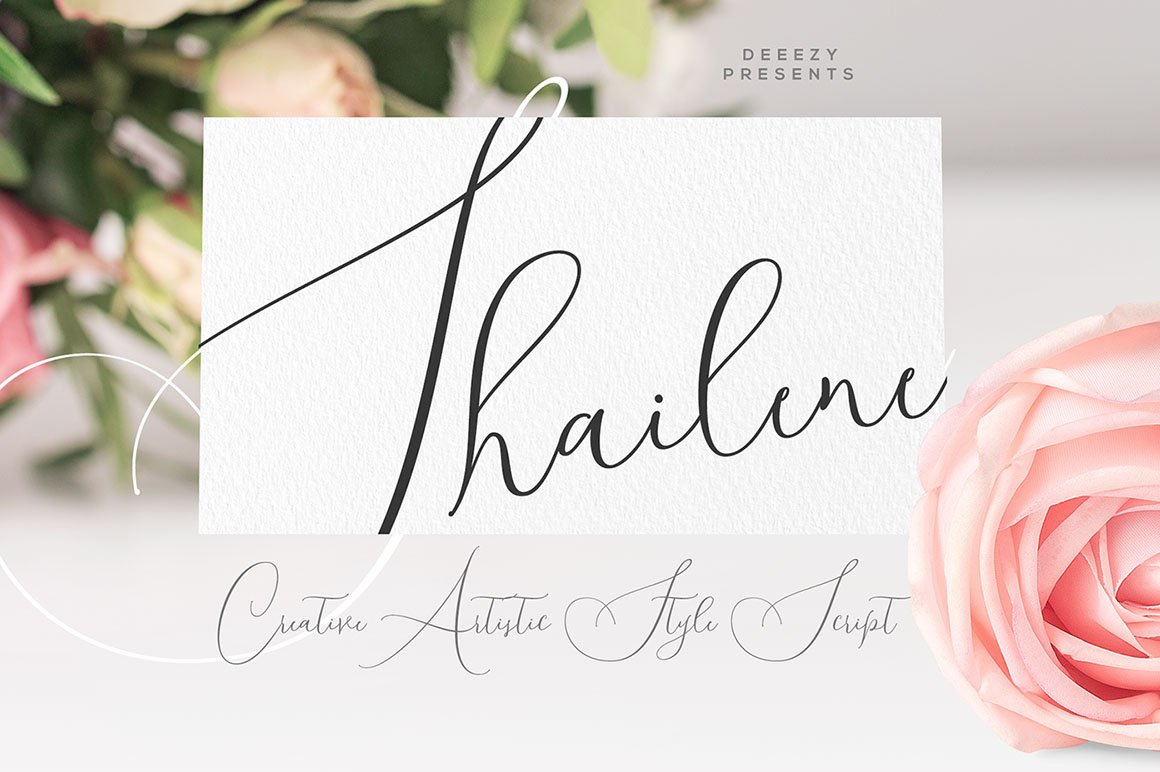
Shailene Script Font
Shailene Script Font is perfect for elegant wedding invitations, feminine brand identity, beauty salon signage, boutique packaging design, luxury cosmetics branding, fashion magazine layouts, romantic greeting cards, spa and wellness materials, jewelry brand identity, sophisticated blog headers, intimate event stationery, and graceful calligraphic compositions.
Shailene Script Font is exciting because it embodies feminine elegance and modern sophistication with flowing script letterforms that dance gracefully across the page, creating an irresistible combination of contemporary style and timeless beauty that instantly elevates any design to luxury status while maintaining perfect readability.
The Shailene Script Font family includes refined variations: Regular, Bold, Light, Swash alternates, Decorative ligatures, and Flourished capitals, providing designers with a complete elegant script system to create sophisticated typographic compositions that capture feminine grace and modern luxury appeal.
Embrace feminine elegance with Shailene Script Font Free Download. This stunning script typeface brings sophisticated beauty and contemporary grace to modern design projects. Whether you're creating luxury brand identities, designing elegant event materials, or developing premium marketing campaigns, Shailene Script Font delivers unmatched refinement and feminine charm that resonates with discerning audiences.
The font's exquisitely crafted letterforms showcase the fluid beauty of modern calligraphy while incorporating contemporary design principles that ensure optimal performance across digital and print applications. Each character flows seamlessly with natural grace, creating harmonious compositions that feel both current and timelessly elegant.
Shailene Script Font excels in creating distinguished brand experiences for businesses targeting sophisticated, style-conscious consumers. Its elegant presence transforms ordinary communications into extraordinary statements of luxury and quality, making it ideal for beauty brands, fashion retailers, and premium service providers seeking to communicate refinement and exclusivity.
Creative professionals appreciate how Shailene Script Font brings instant sophistication to design projects without appearing overly ornate or pretentious. The font's balanced character and thoughtful design ensure it performs beautifully in both intimate applications and grand display settings, maintaining its elegant charm across all scales.
This remarkable typeface shines in applications where emotional connection and luxury positioning are essential. From high-end salons to boutique fashion brands, Shailene Script Font creates lasting impressions that communicate excellence, femininity, and the highest standards of contemporary elegance and style.